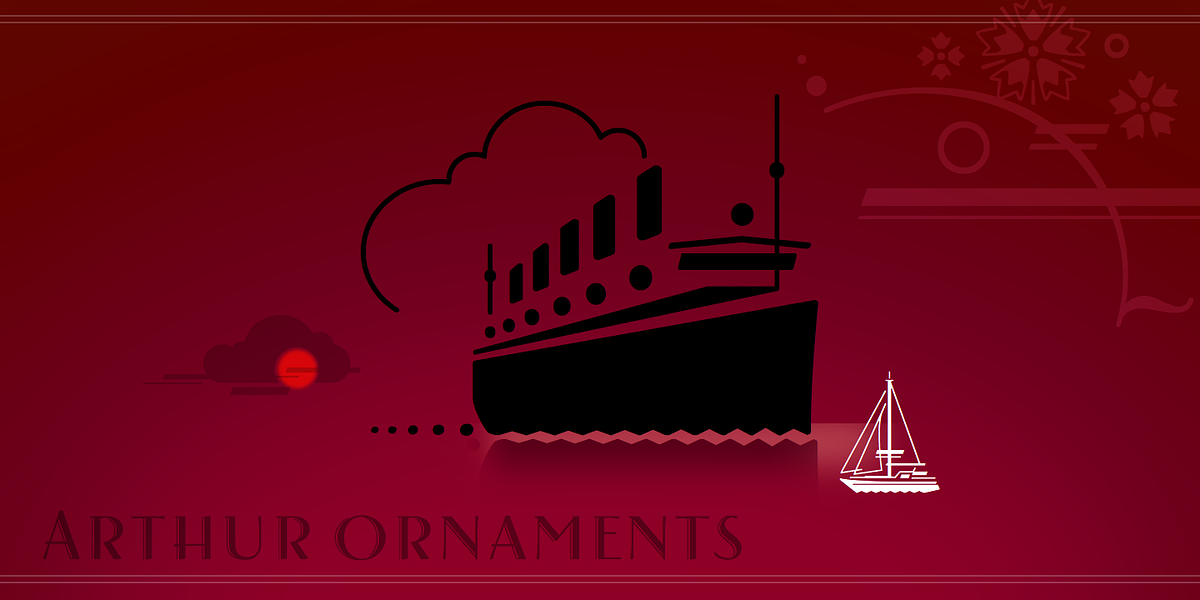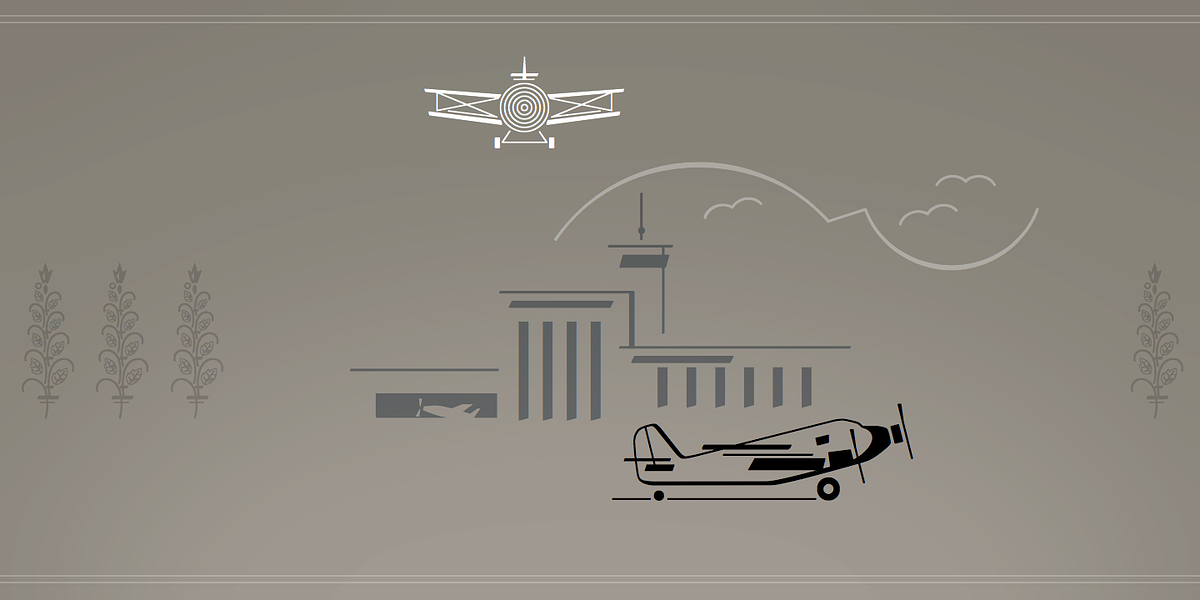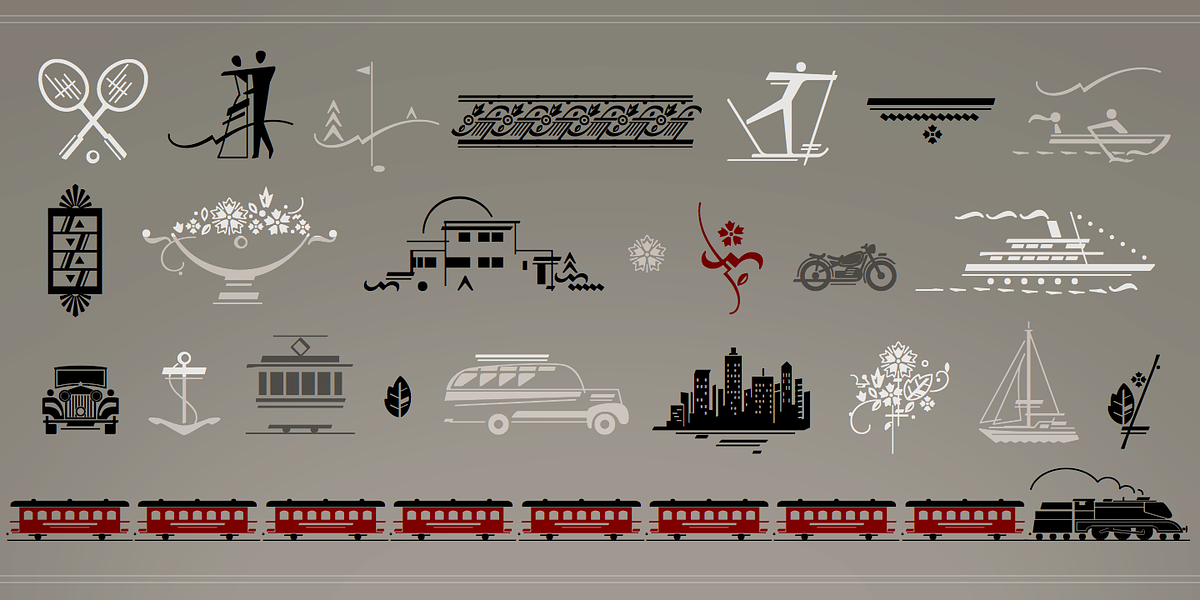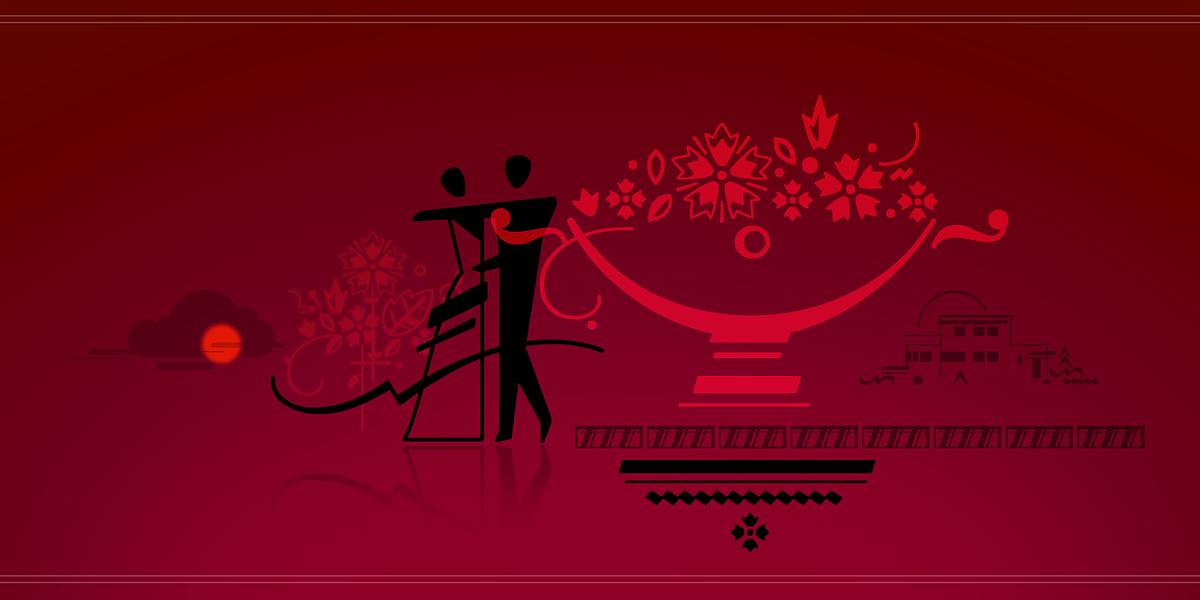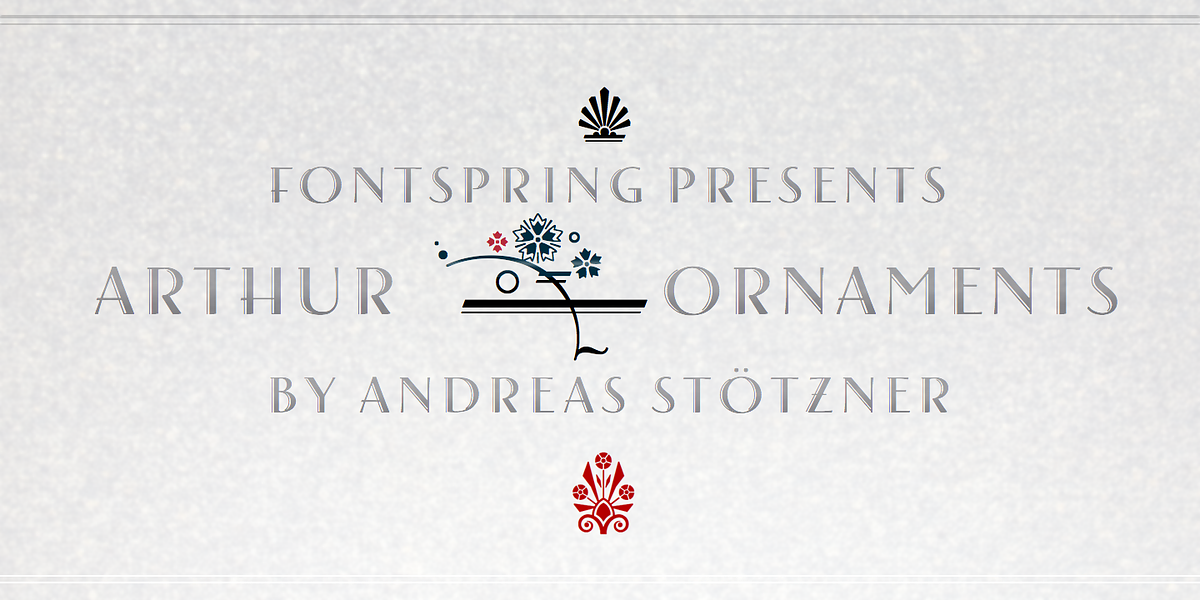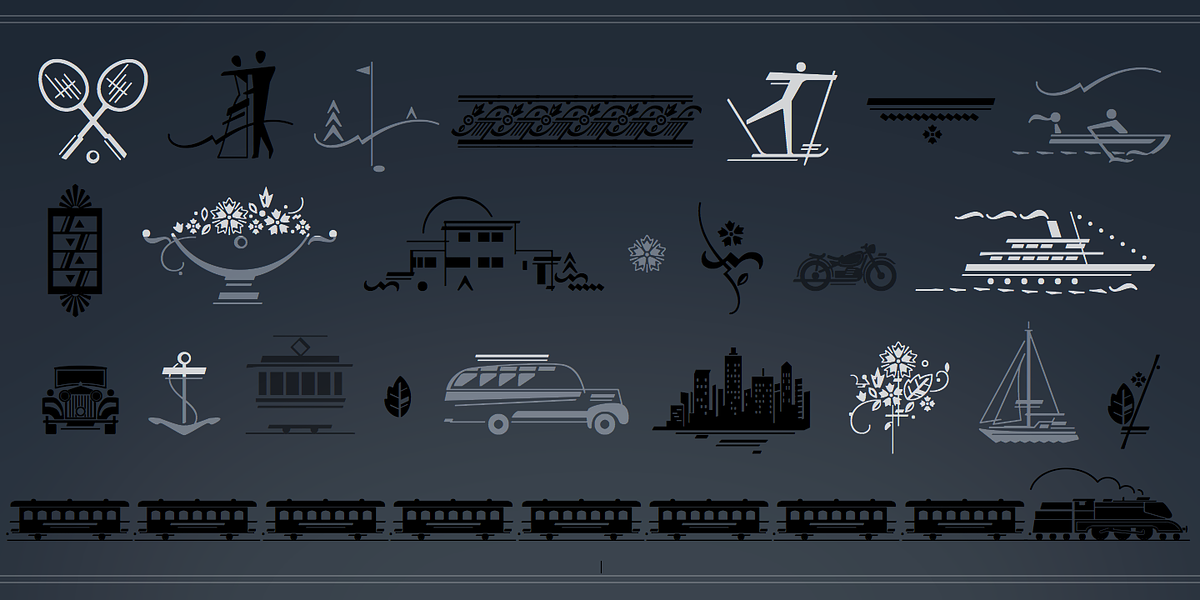
Arthur Ornaments
Arthur Ornaments is a dingbat font featuring 70 ornamental characters inspired by 1940s design. The set includes border pieces, flower motifs, block elements, and lifestyle, luxury, and sports icons.